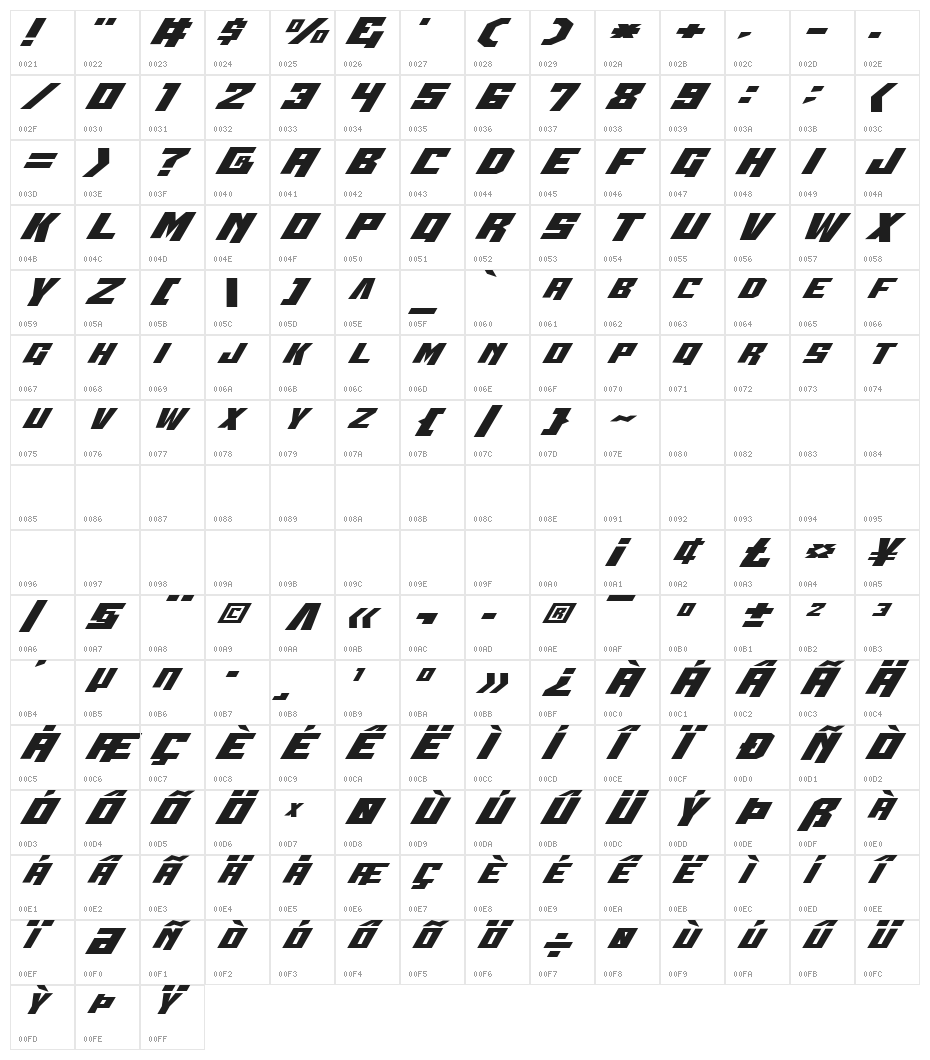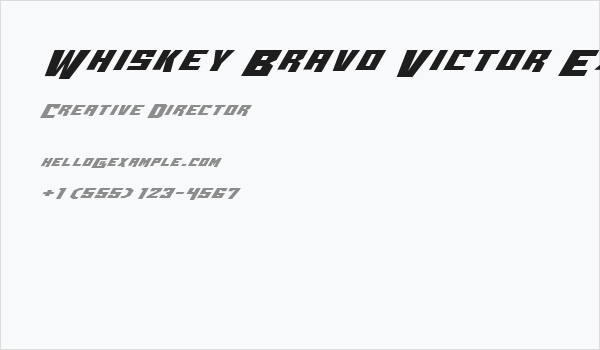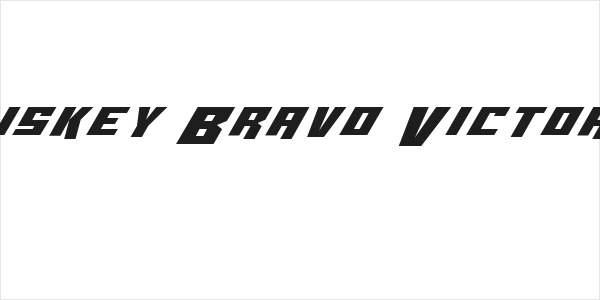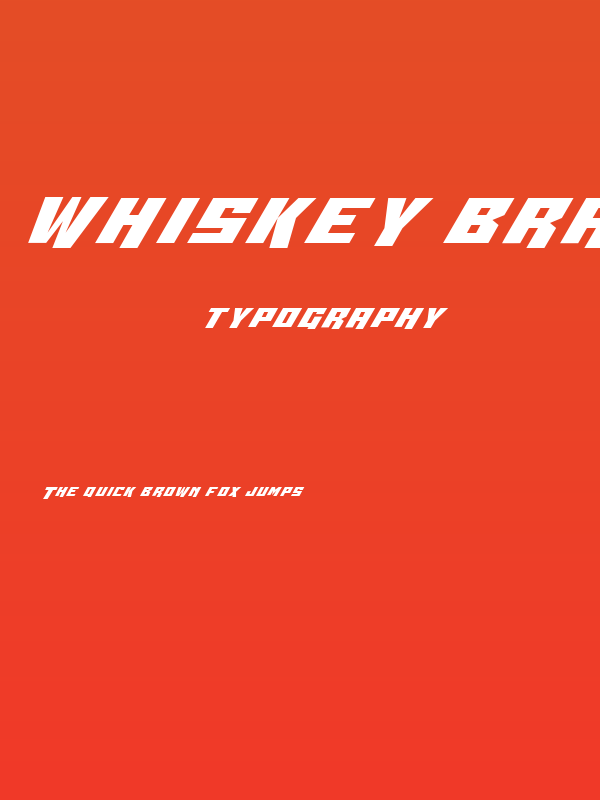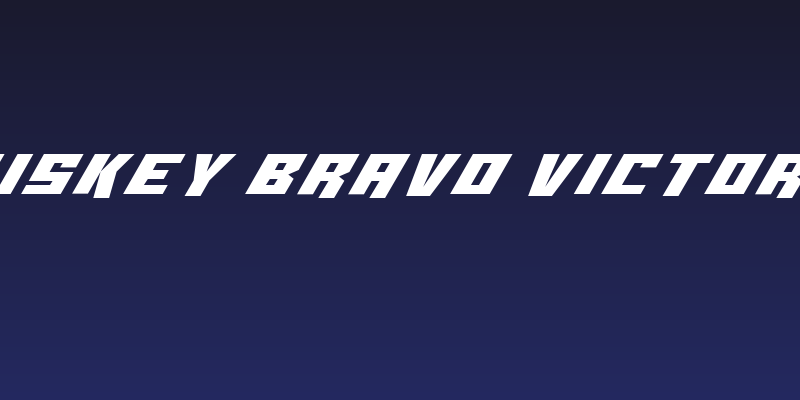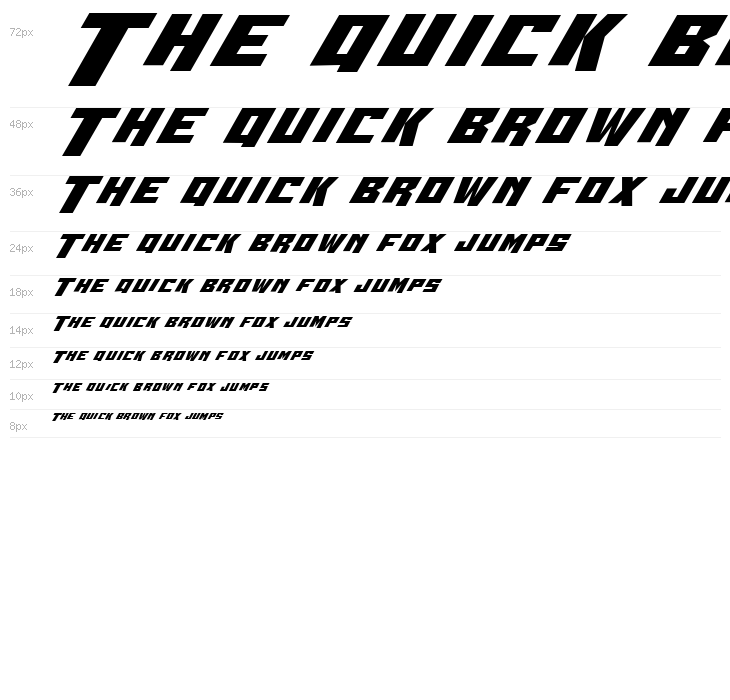
Whiskey Bravo Victor Ex Font
Whiskey Bravo Victor Ex Description
This font features a bold, angular design with a strong geometric influence. The characters are sharply defined with a distinct slant, giving them a dynamic and energetic appearance. The uppercase letters are particularly striking, with wide, blocky forms that convey a sense of strength and stability. The lowercase letters maintain this boldness, ensuring consistency across the typeface. Numbers and special characters are equally robust, making them suitable for impactful displays. The overall style is modern and assertive, ideal for projects that require a strong visual presence.
| Proposed Projects | Ideal for branding, sports team logos, posters, and any design requiring a strong, dynamic presence. |